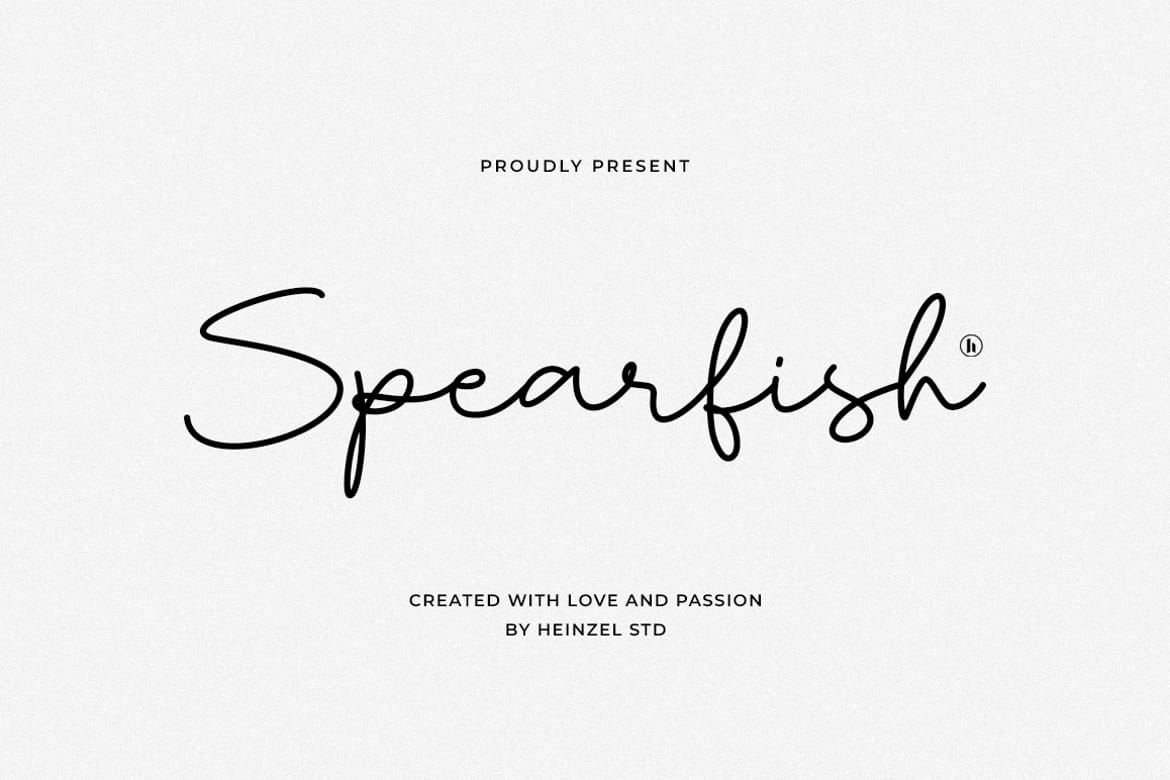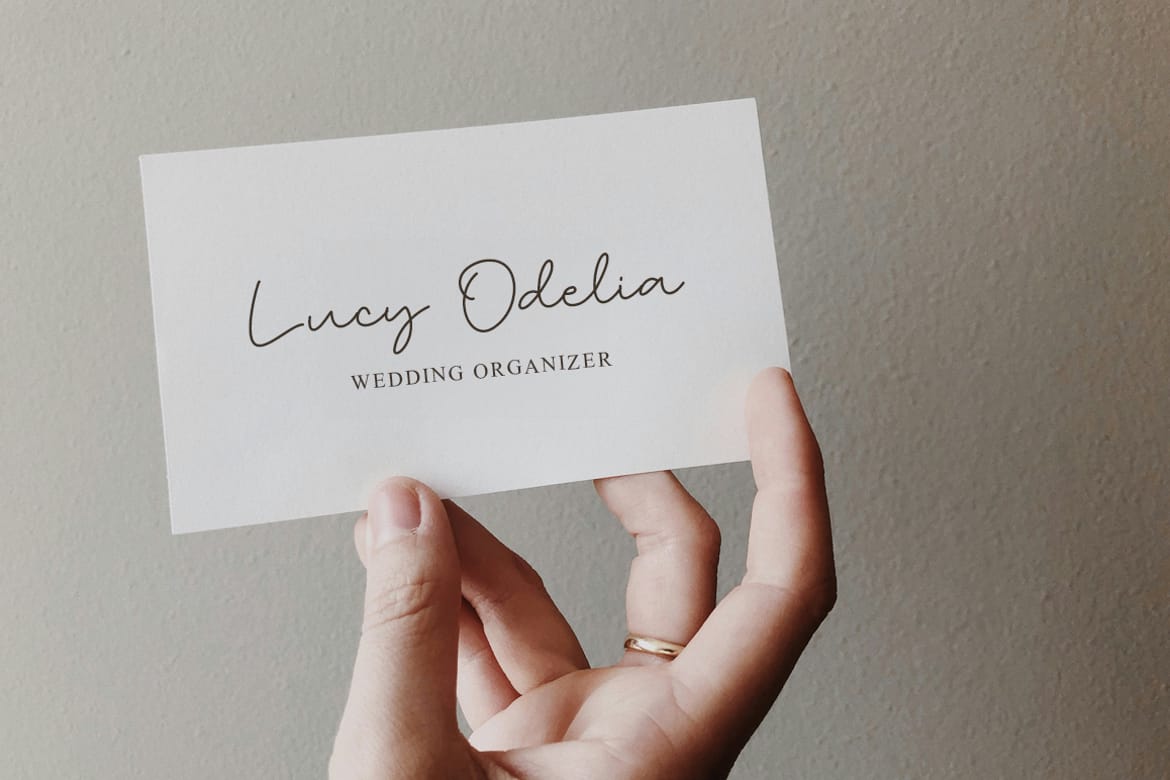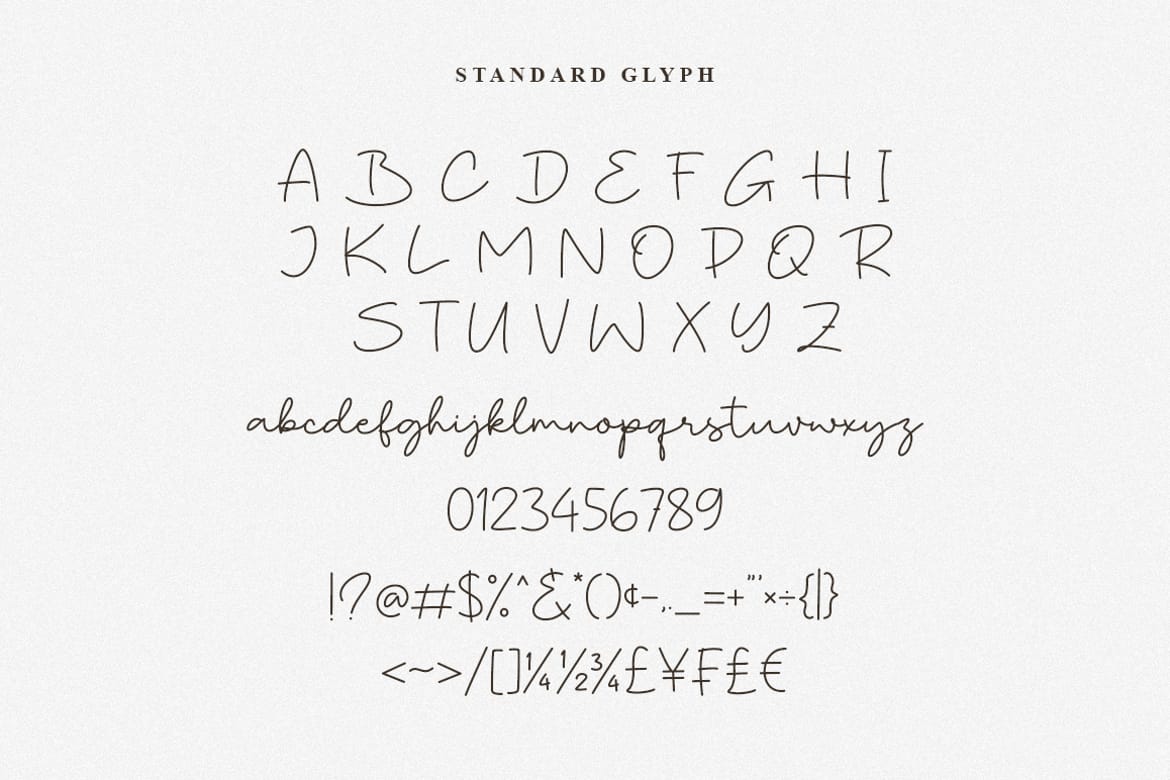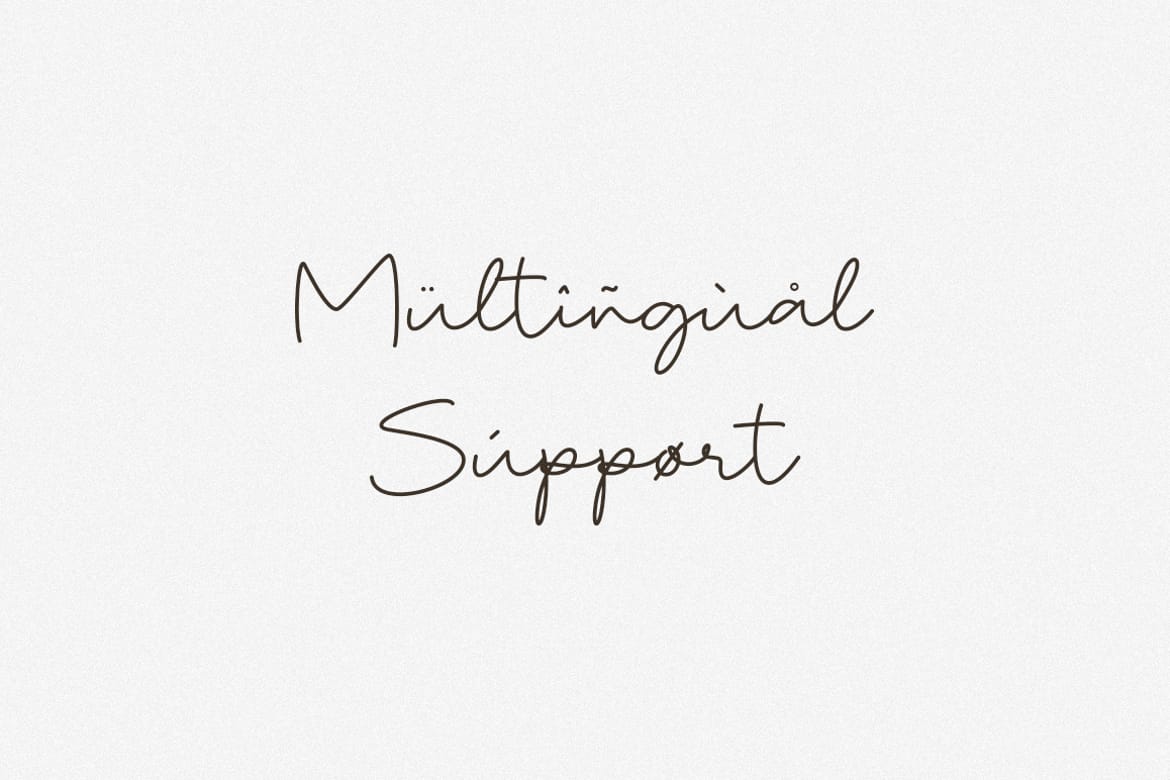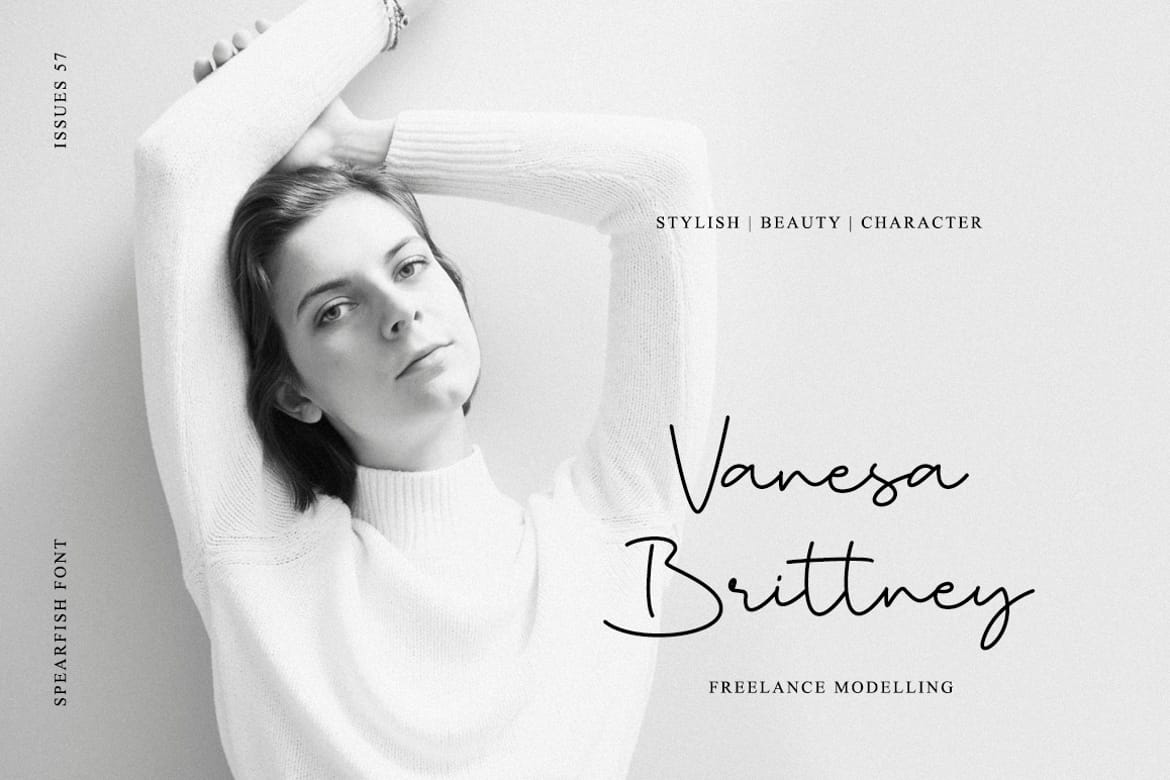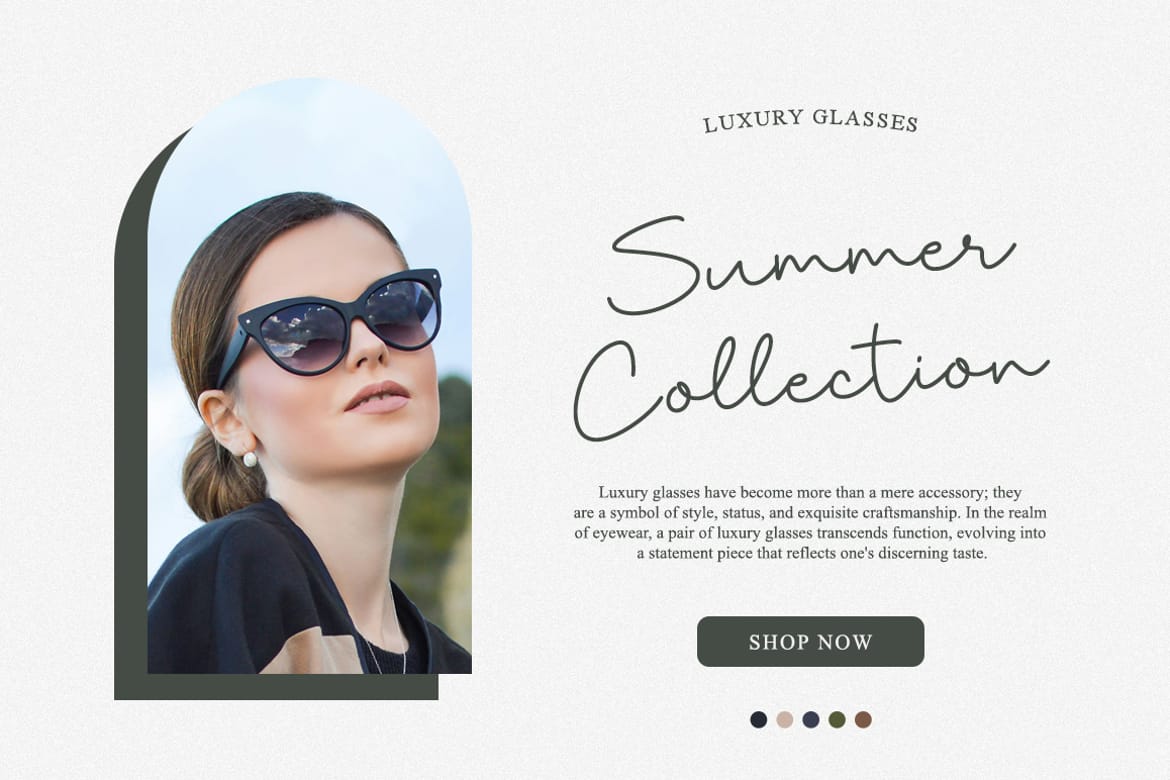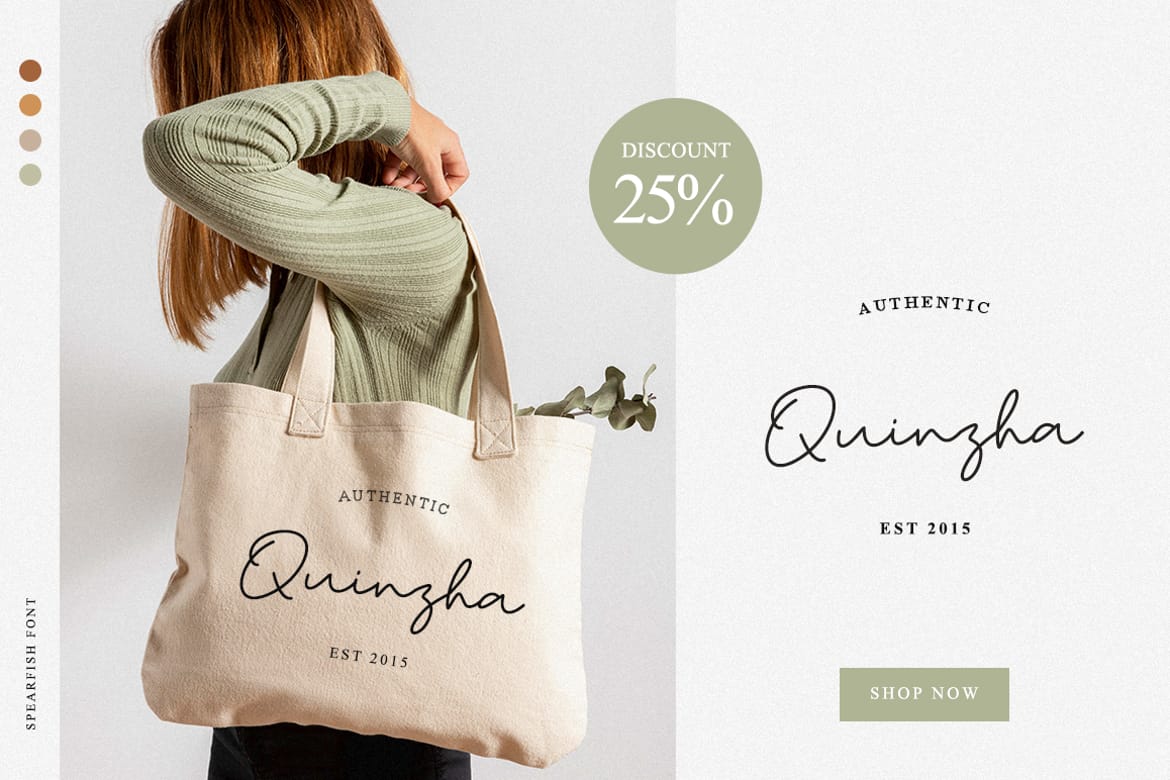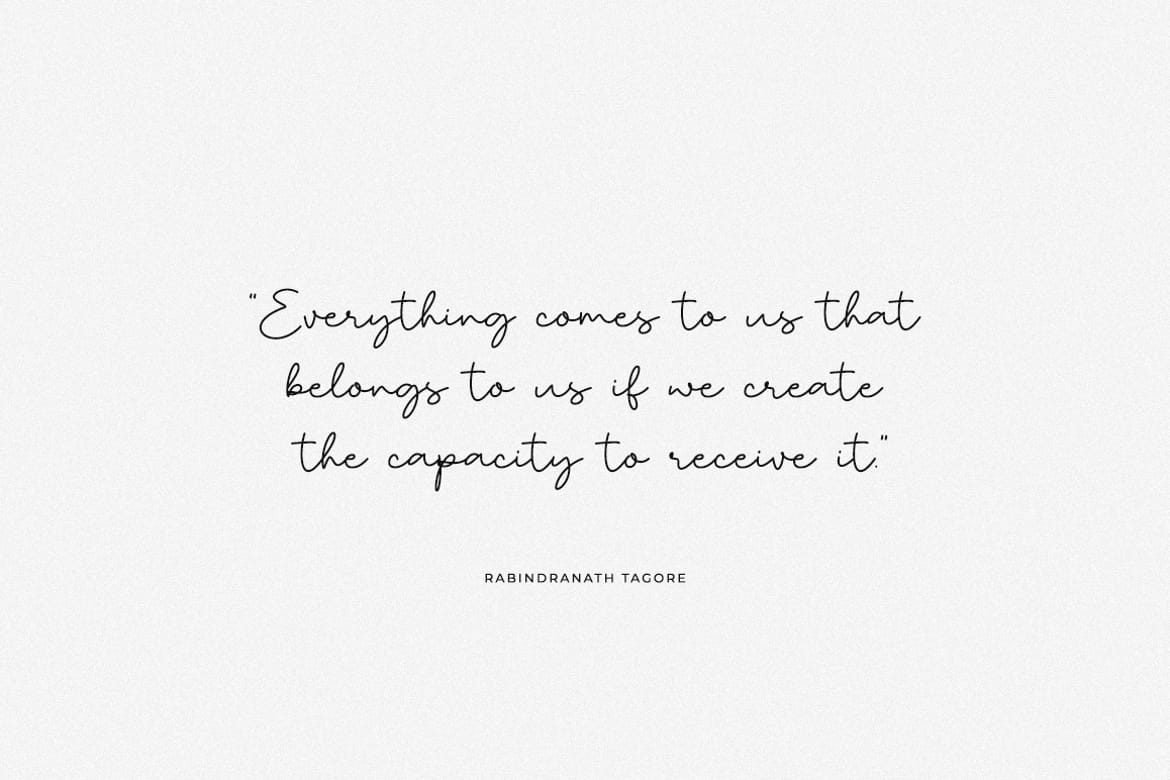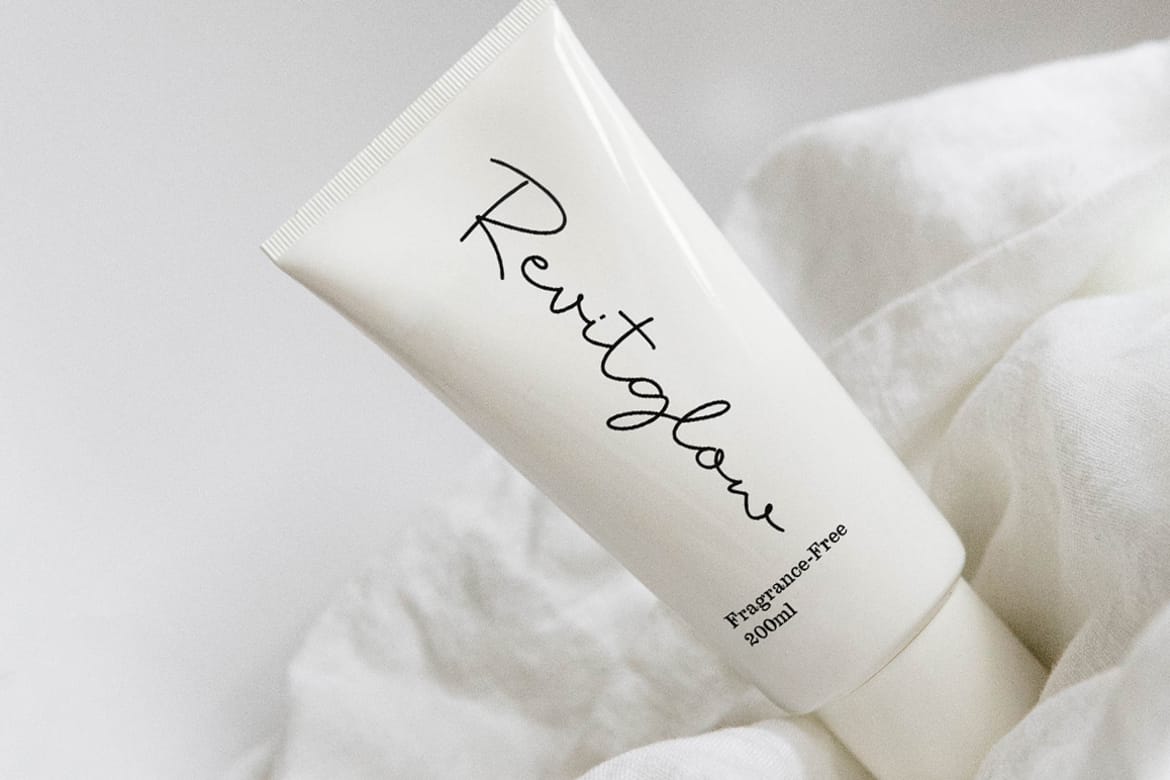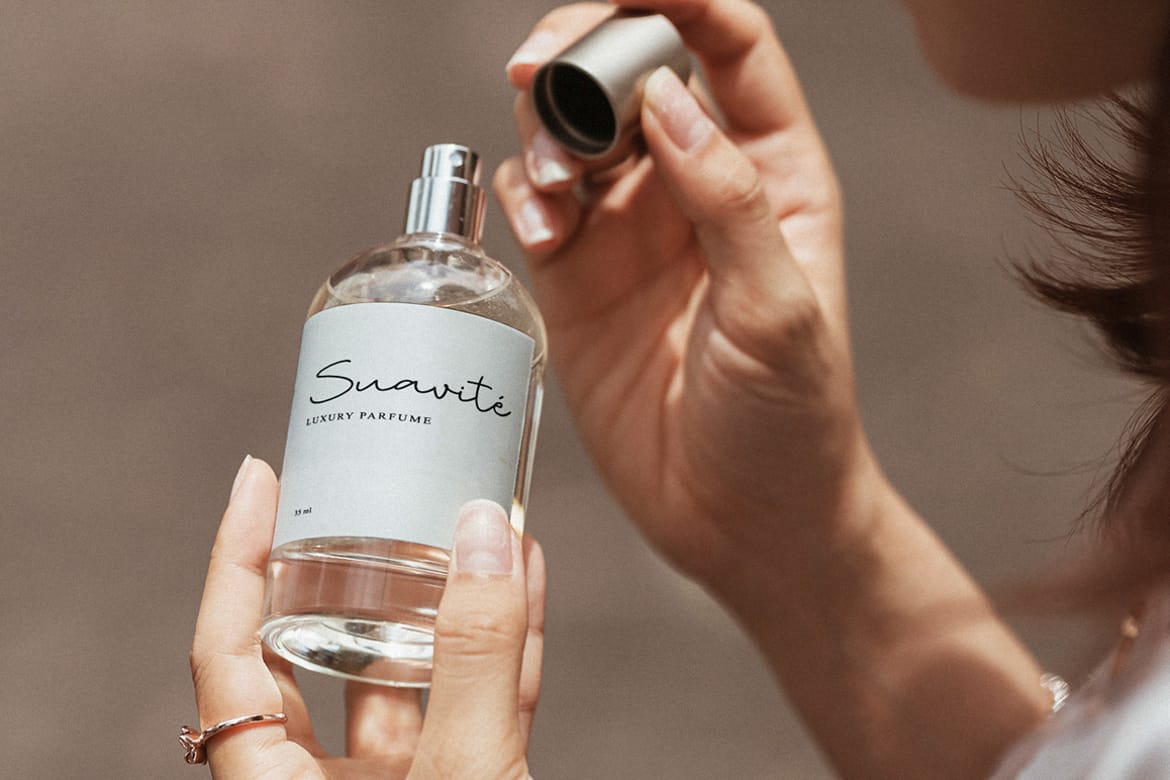
Spearfish is a modern signature handwritten font designed to bring elegance, authenticity, and personal charm to your creative projects. Featuring smooth flowing strokes, natural pen movement, and stylish letterforms, Spearfish captures the beauty of genuine handwriting while maintaining excellent readability.
Perfect for branding, logos, wedding invitations, social media graphics, fashion campaigns, product packaging, photography watermarks, business cards, and luxury marketing materials. Its clean and sophisticated signature style makes it an excellent choice for designers seeking a premium handwritten font that feels both modern and timeless.